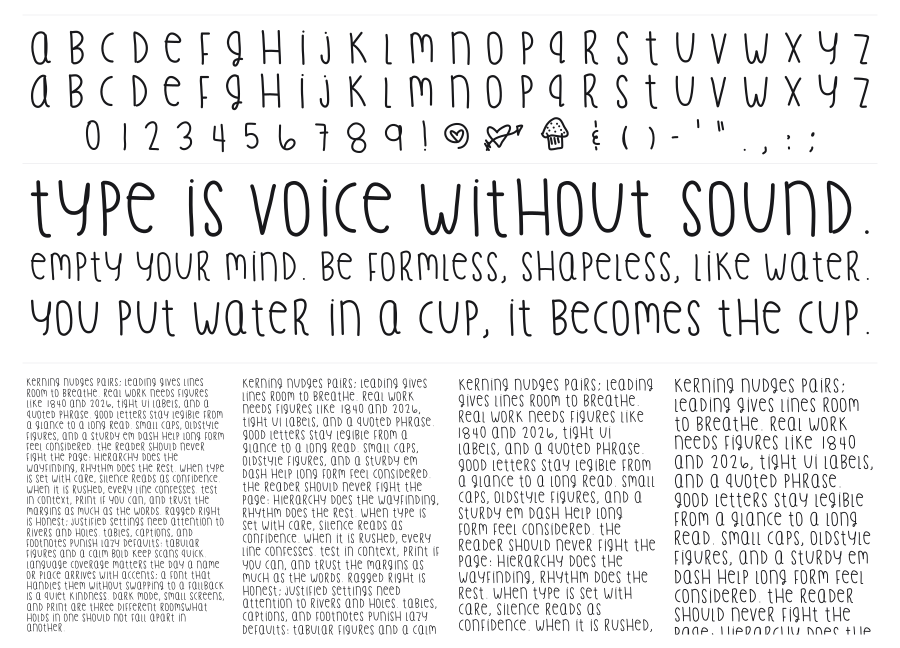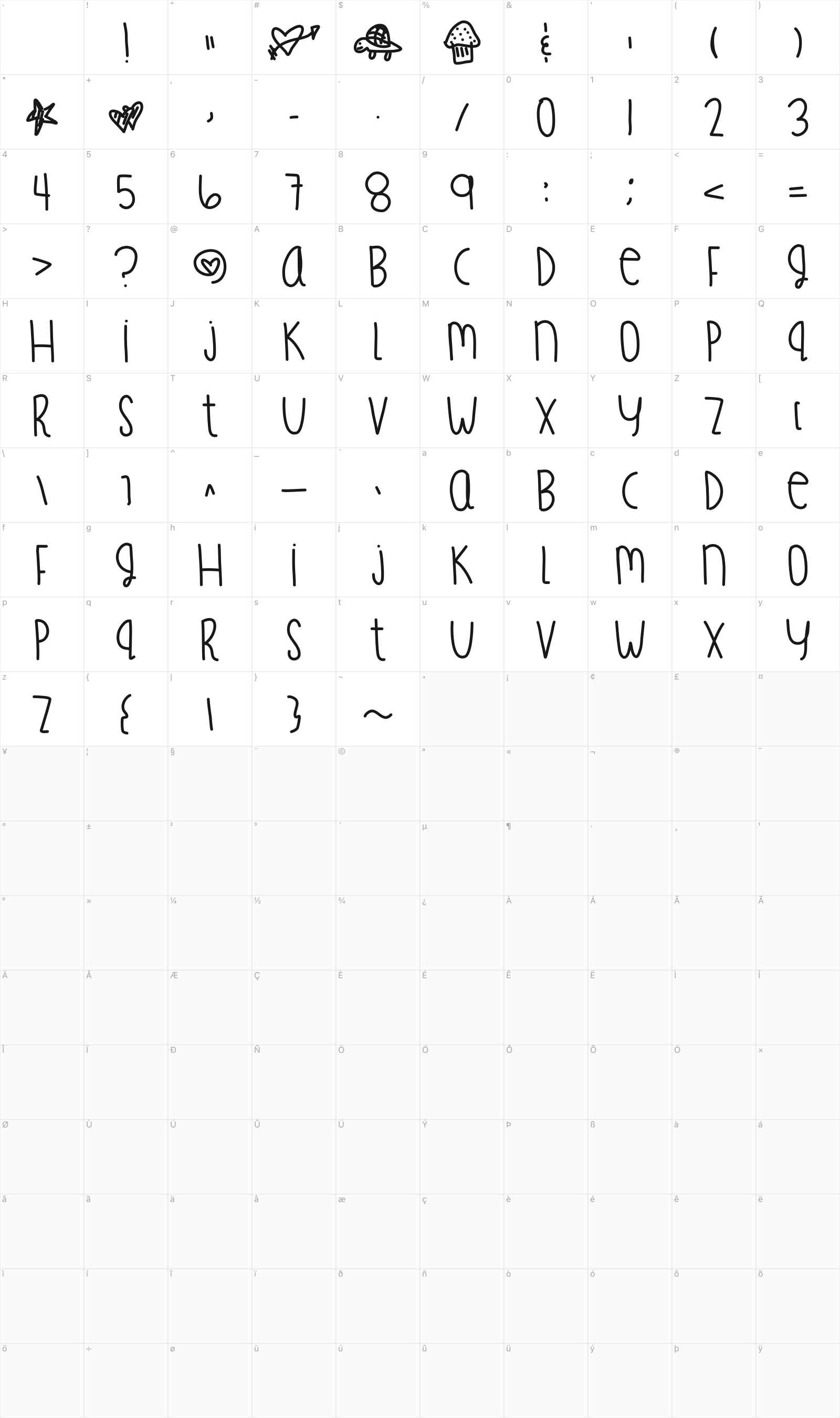
Treasure Fingers
by Des Gomez
Treasure Fingers is a thin, condensed handwritten face from Des Gomez with a quirky, slightly off-balance rhythm that keeps things feeling genuinely personal. The lightweight strokes and narrow letterforms have a whimsical looseness to them, like notes scribbled in the margins of a sketchbook. It works well for casual branding, packaging, or any context where you want type that feels light on its feet and full of character.